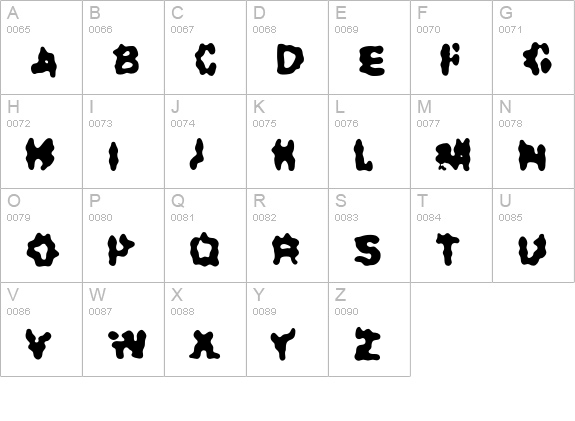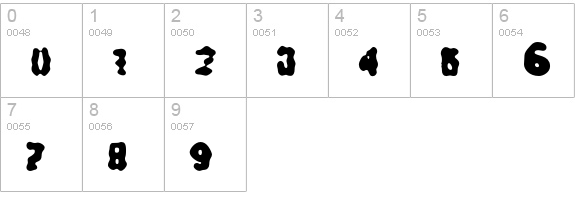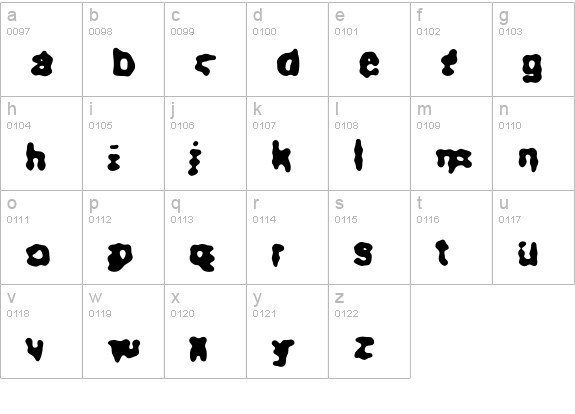
Dirty-Two font is a unique and edgy typeface that exudes a rebellious and grungy vibe. Its rough and distressed appearance gives any design a raw and gritty look, perfect for projects that require a touch of urban flair. The irregular strokes and imperfect shapes add character and personality to your text, making it stand out from the crowd. What's even better is that Dirty-Two font is completely free to download at FontsMarket.com. This means you can easily access this one-of-a-kind font and use it in your personal or commercial projects without any cost. So why wait? Add a touch of grunge to your designs with Dirty-Two font today!